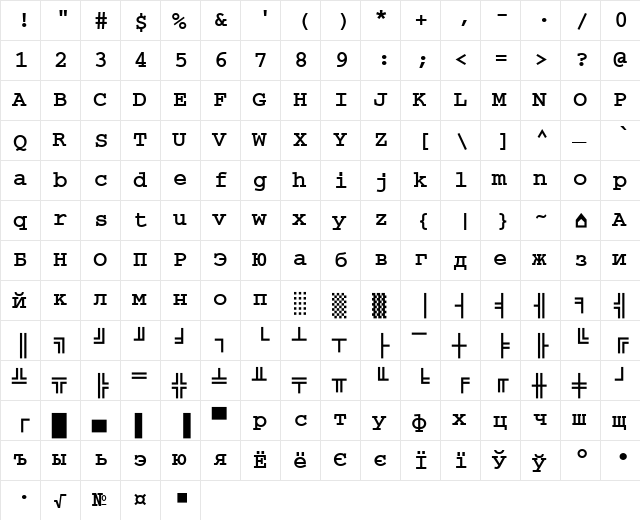
CourierDOSCTT Bold
Design Context for CourierDOSCTT Typeface
CourierDOSCTT uses fixed-width spacing throughout, giving it the structured, systematic character associated with coding environments and technical documentation. The heavy weight commands attention and anchors typographic hierarchies.
Pro Tip: Pair CourierDOSCTT with a proportional sans for UI contexts where code-style labels and regular body copy need to coexist.